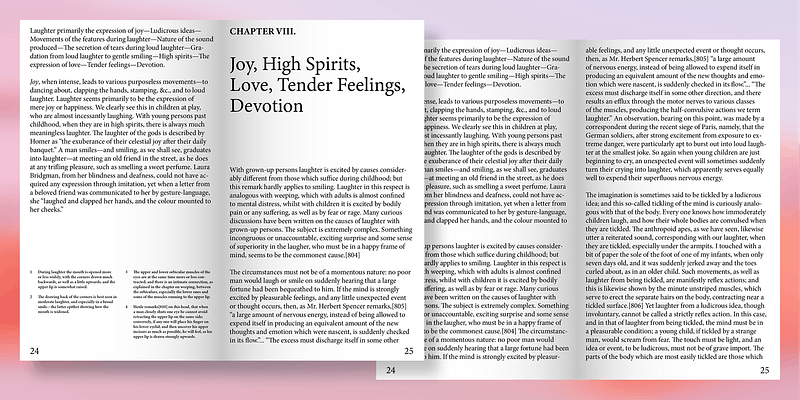
Minion is a contemporary type family created by [Robert Slimbach](/designers/robert-slimbach) and released by [Adobe Originals](/foundries/adobe). Since its earliest release, Minion has proven to be a versatile typeface for text and display, used widely in books and in editorial design where readability and elegance are necessities. With Minion 3, Slimbach had the opportunity to re-examine the Minion family and to extend it further, nearly doubling the number of Latin glyphs to cover African languages and Vietnamese, as well as full IPA (International Phonetic Alphabet). Slimbach has also extensively refined the Cyrillic and Greek scripts, and introduced Armenian script in addition. Minion 3 is available in four weights and four optical sizes ([Display](/fonts/minion-3-display), [Caption](/fonts/minion-3-caption), [Subhead](/fonts/minion-3-subhead), and [text](/fonts/minion-3)), each with corresponding italics. [